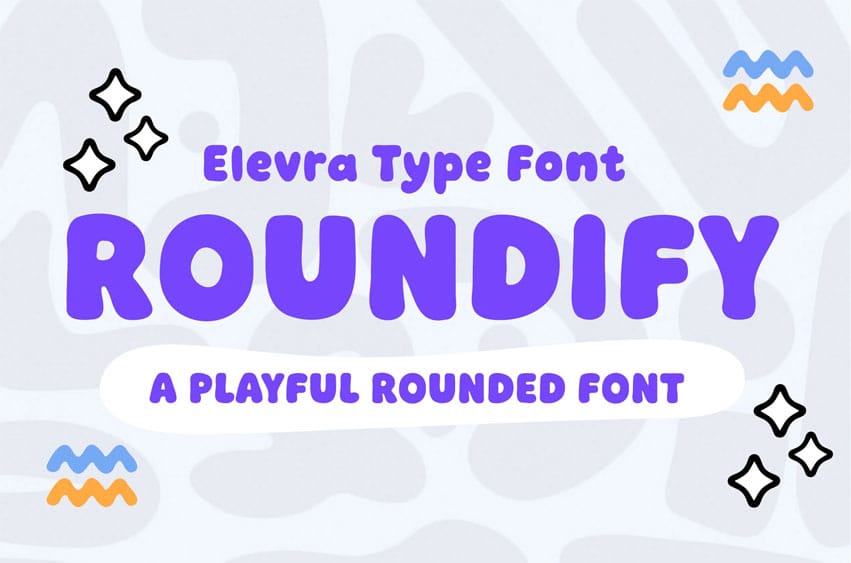
Roundify Font is a playful, rounded font designed to bring fun, friendliness, and soft character to your creative projects. With bold curved shapes and smooth edges, this typeface gives every word a cheerful and inviting feel. Perfect for children’s books, branding, logos, product packaging, social media graphics, and fun digital content, Roundify adds a cute and joyful personality wherever it appears.
This font is crafted to maintain readability while still feeling expressive and lively, making it an excellent choice for modern, playful design styles. Whether you are creating adorable posters, educational materials, or colorful website titles, Roundify will enhance your work with a warm and charming look. Let this rounded typeface help your creative ideas stand out with happiness and positivity.
- Bold and playful, rounded display style
- Soft curves for a friendly and approachable feel
- Clean and readable shapes for modern creative designs
- Includes uppercase, lowercase, numbers, and punctuation